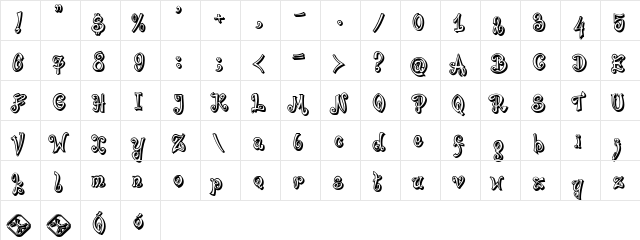
Bajareczka Shadow Regular
| Designer | atrax |
Design Context for Bajareczka Shadow Typeface
Bajareczka Shadow brings ornamental detail and strong personality to headlines and identities, where visual impact matters more than quiet functionality.
Font Pairing: Pair with a clean neutral sans-serif for body copy to let Bajareczka Shadow's character lead without overwhelming the composition.
Pro Tip: Treat Bajareczka Shadow as the centrepiece of your typographic hierarchy. One strong heading set in a decorative face can carry an entire layout.